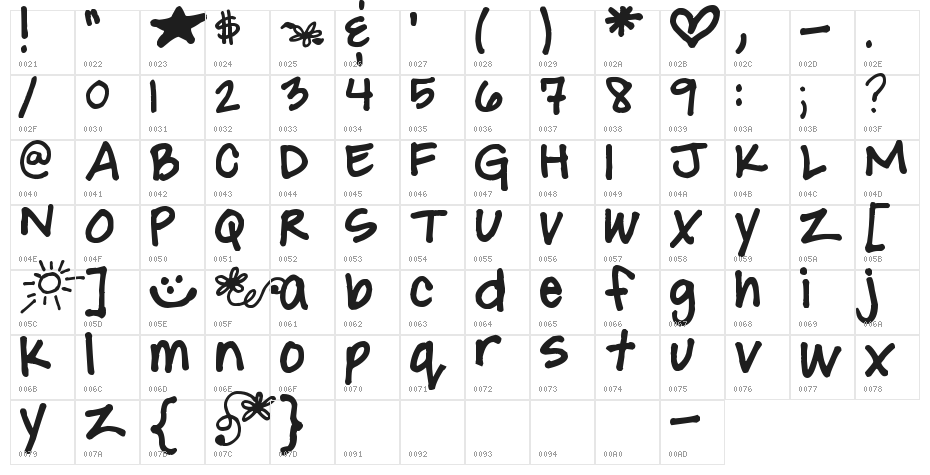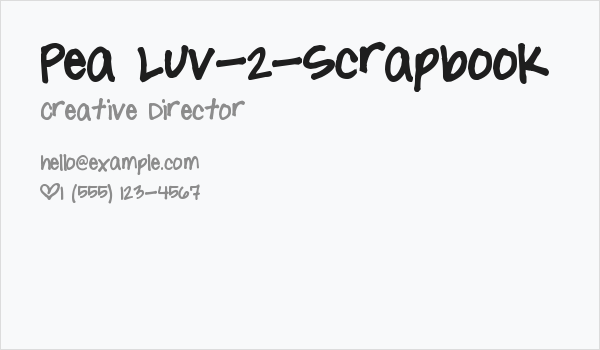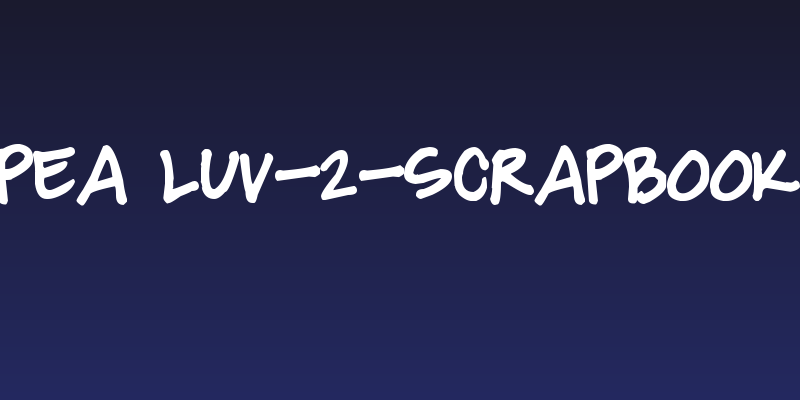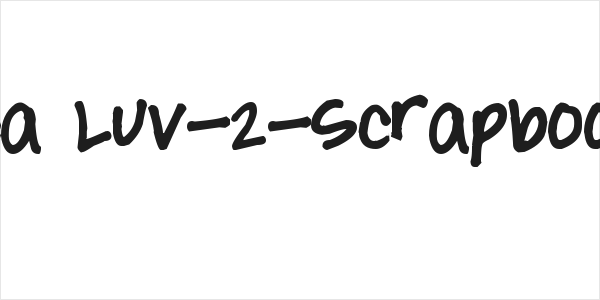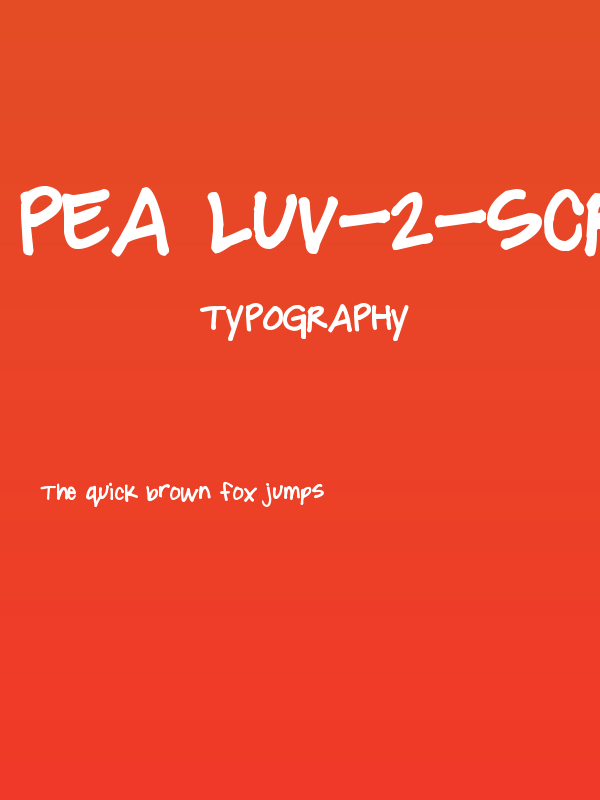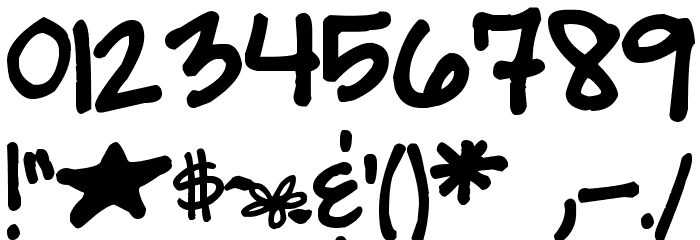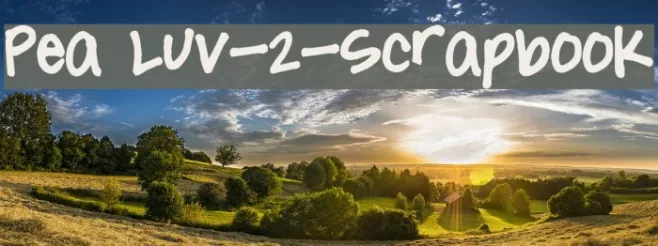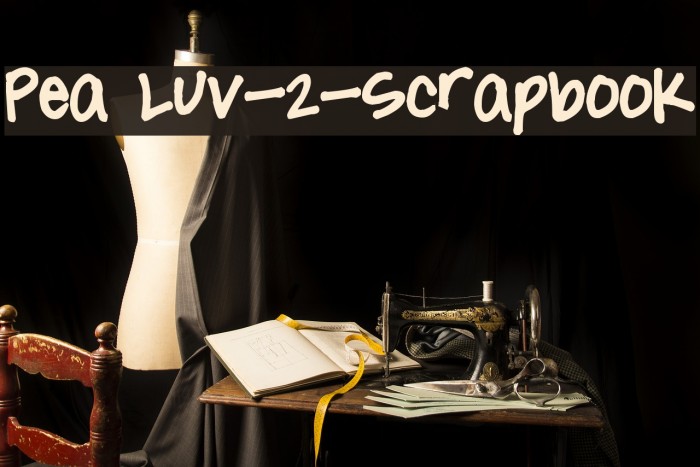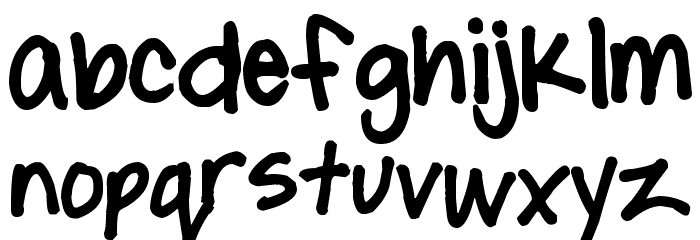
Pea Luv-2-Scrapbook Font
Pea Luv-2-Scrapbook Description
This playful and whimsical font features a handwritten style with bold, rounded strokes that give it a friendly and approachable appearance. The characters are slightly irregular, adding to the casual and informal feel. The uppercase and lowercase letters maintain a consistent style, with a slight slant that suggests movement and energy. The numbers and special characters are equally expressive, making this font suitable for creative projects. Its boldness ensures readability while the unique character shapes add personality.
| Overall Style | Casual |
| Use Case | Headlines, Logos, Creative projects |
| Proposed Projects | Ideal for scrapbooking, greeting cards, children's books, and playful branding. |